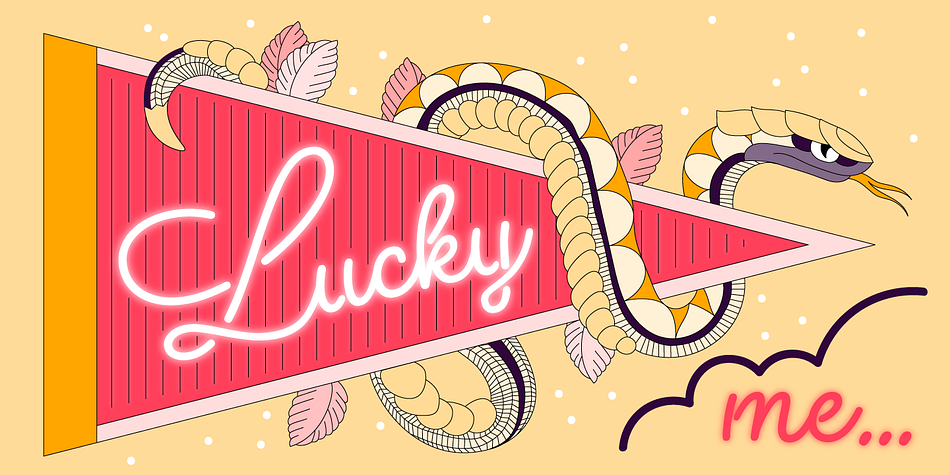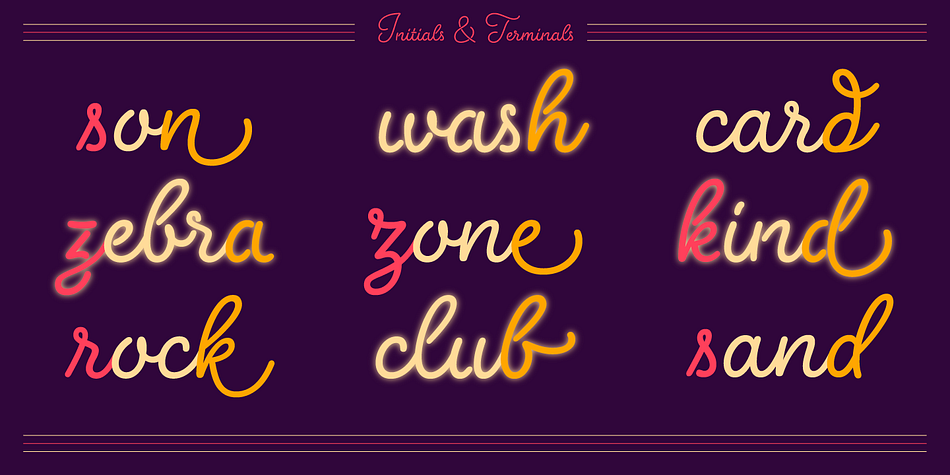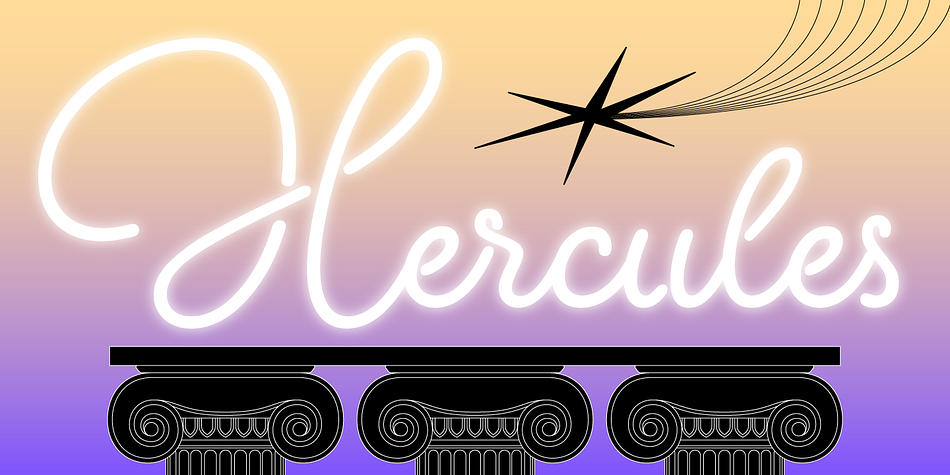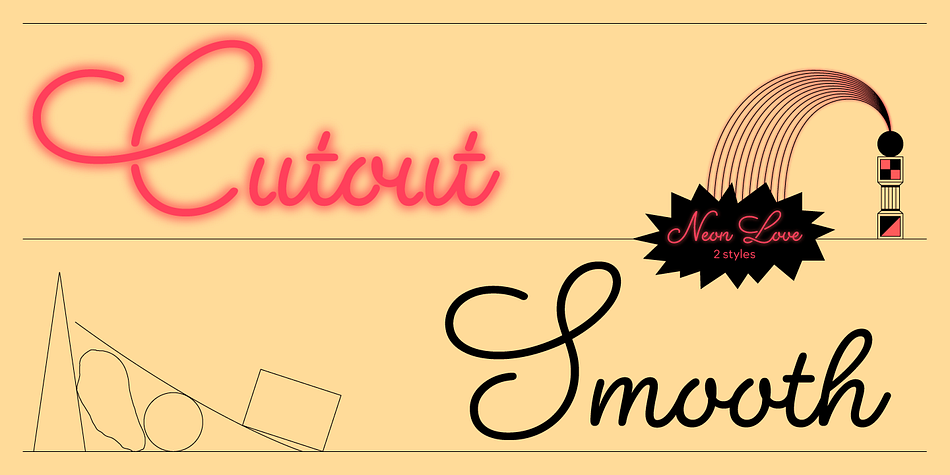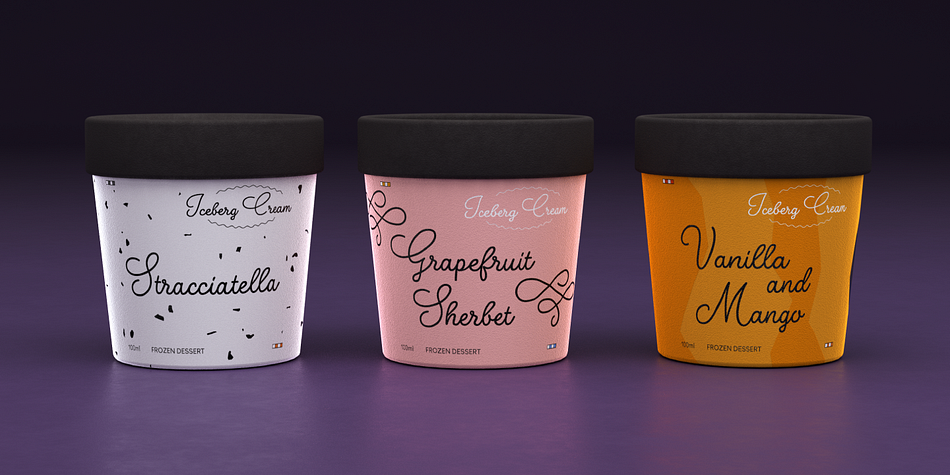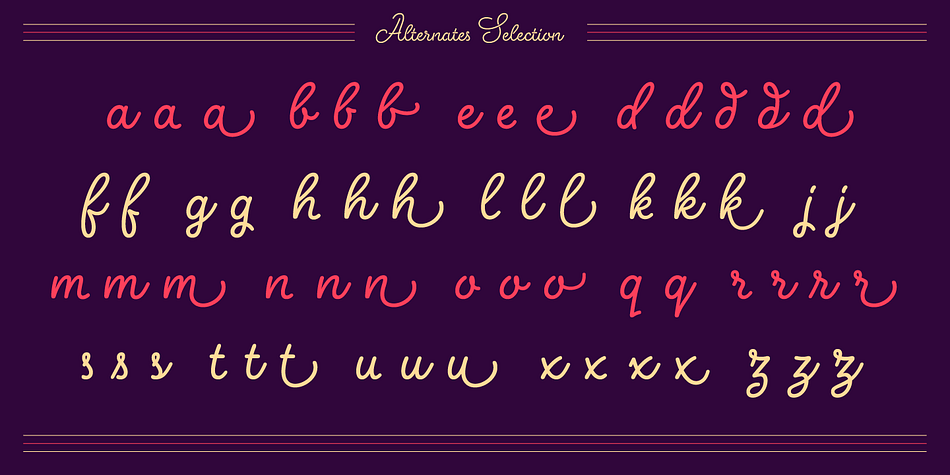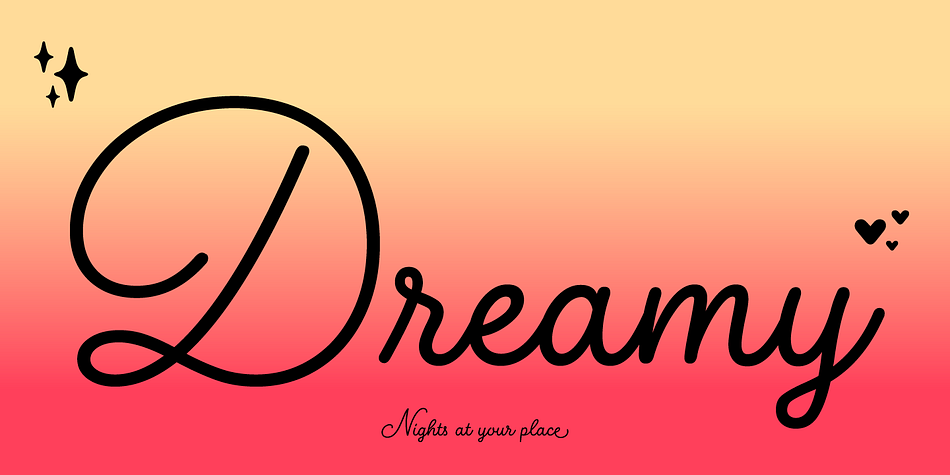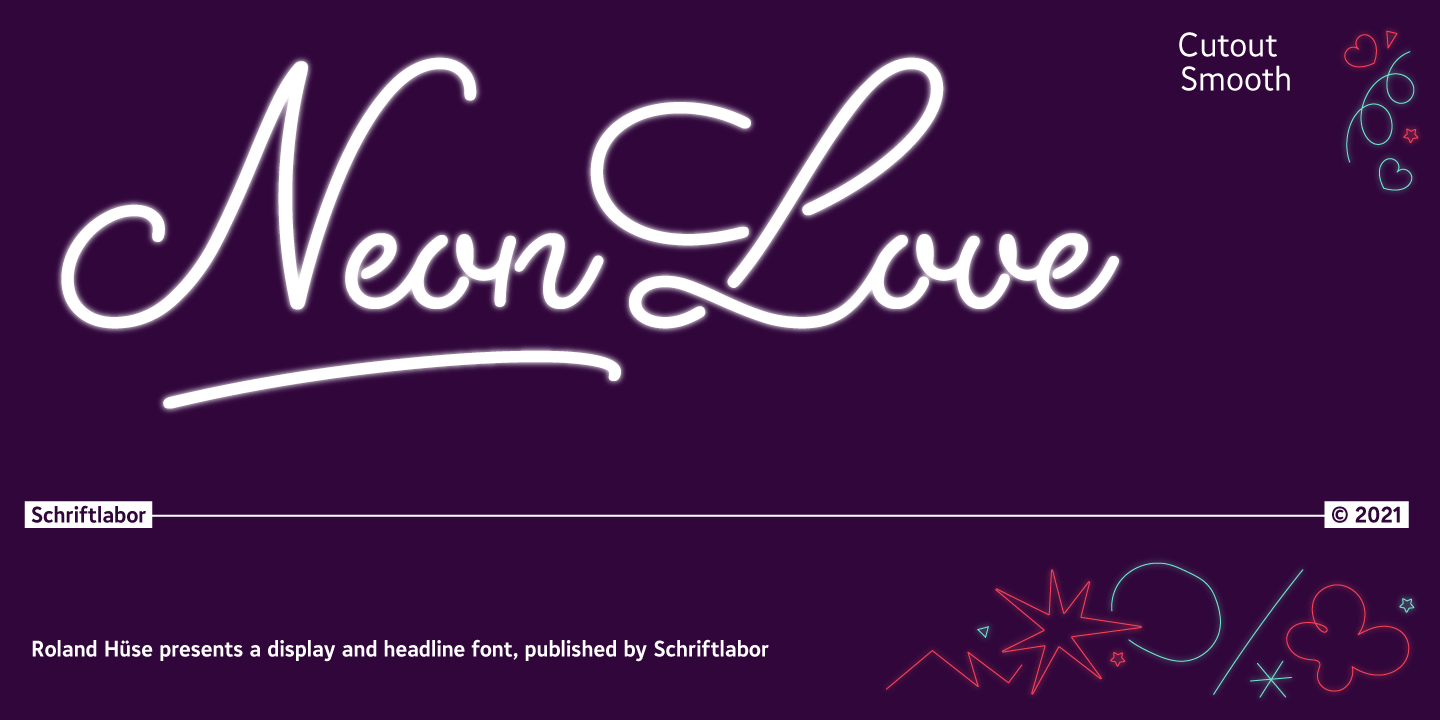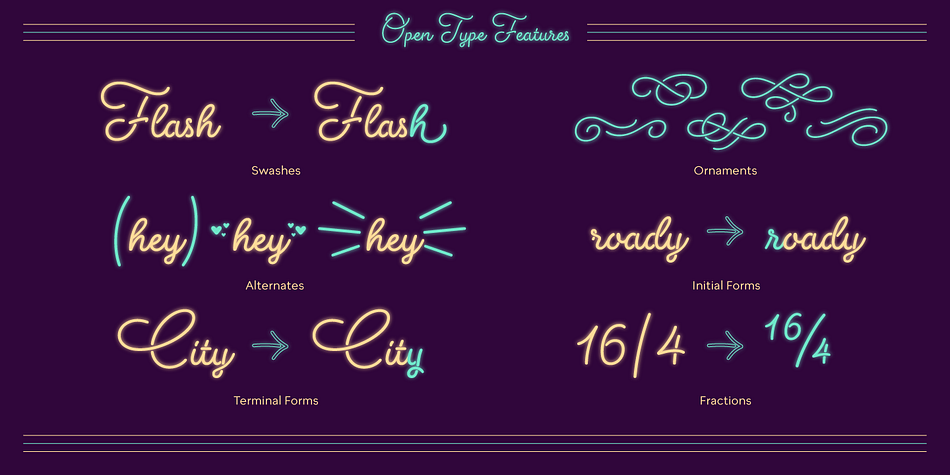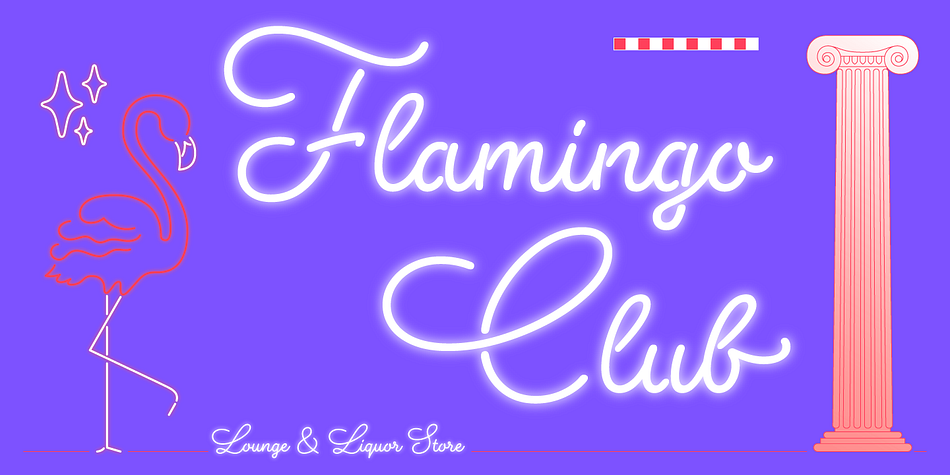
Neon Love is a script font family. This typeface has two styles and was published by Schriftlabor.
Neon Love was designed originally for a circle coaster design with a quote by the Beatles’ “All you need is Love, Love is all you need”. The inspiration of the lettering was a neon sign style where a cursive script is kind of bended from those glass wires. The idea was to get the overall look and feel of neon signs into a font, as well as creating a good raw material to use for some further photoshop effects to enhance the visual presentation. Neon Love has many OpenType features that allow for choices that can make the lettering unique.
Neon Love has two versions of the font a Smooth one which is connected and the Cutout version which can be used to create neons and for this it is in parts.
Design by Roland Hüse and Schriftlabor team.